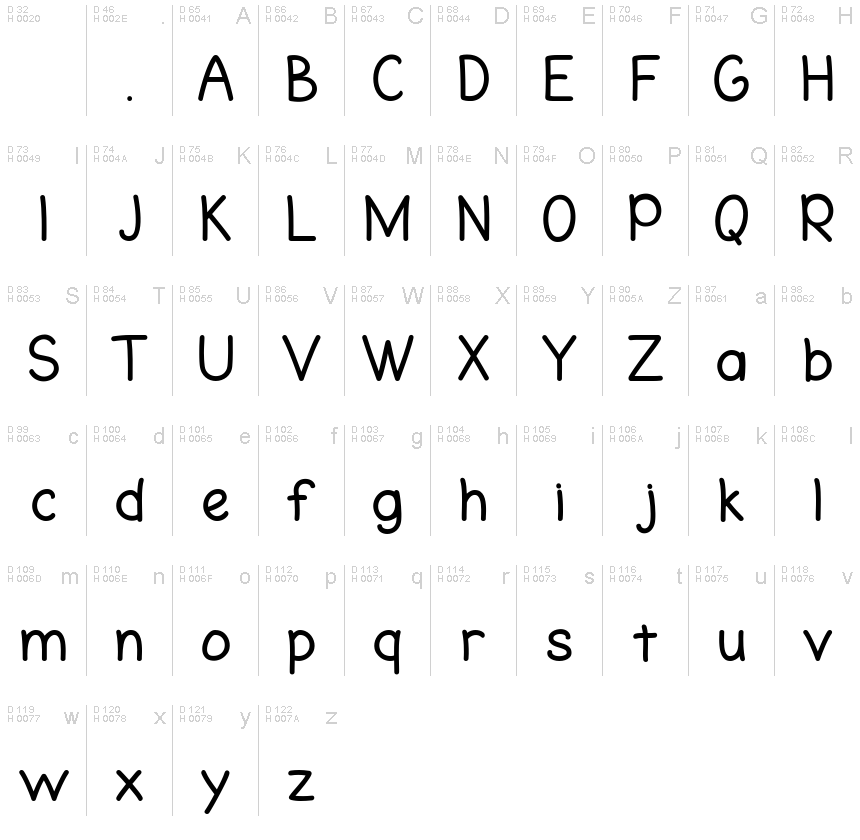
Hey Bunnys Regular
Hey Bunnys font by Achmad Yani of Flawless and Co captures a playful, handwritten style that exudes charm and personality. Its casual script flows effortlessly, offering an inviting and warm aesthetic perfect for creative projects. The letters dance across the baseline with energy, making this free font a delightful choice for casual invitations, children’s book covers, or whimsical branding.
The exaggerated ascenders and descenders add a touch of elegance while maintaining a friendly tone. For designers seeking to infuse their work with an approachable yet stylish flair, Hey Bunnys font is an excellent option.